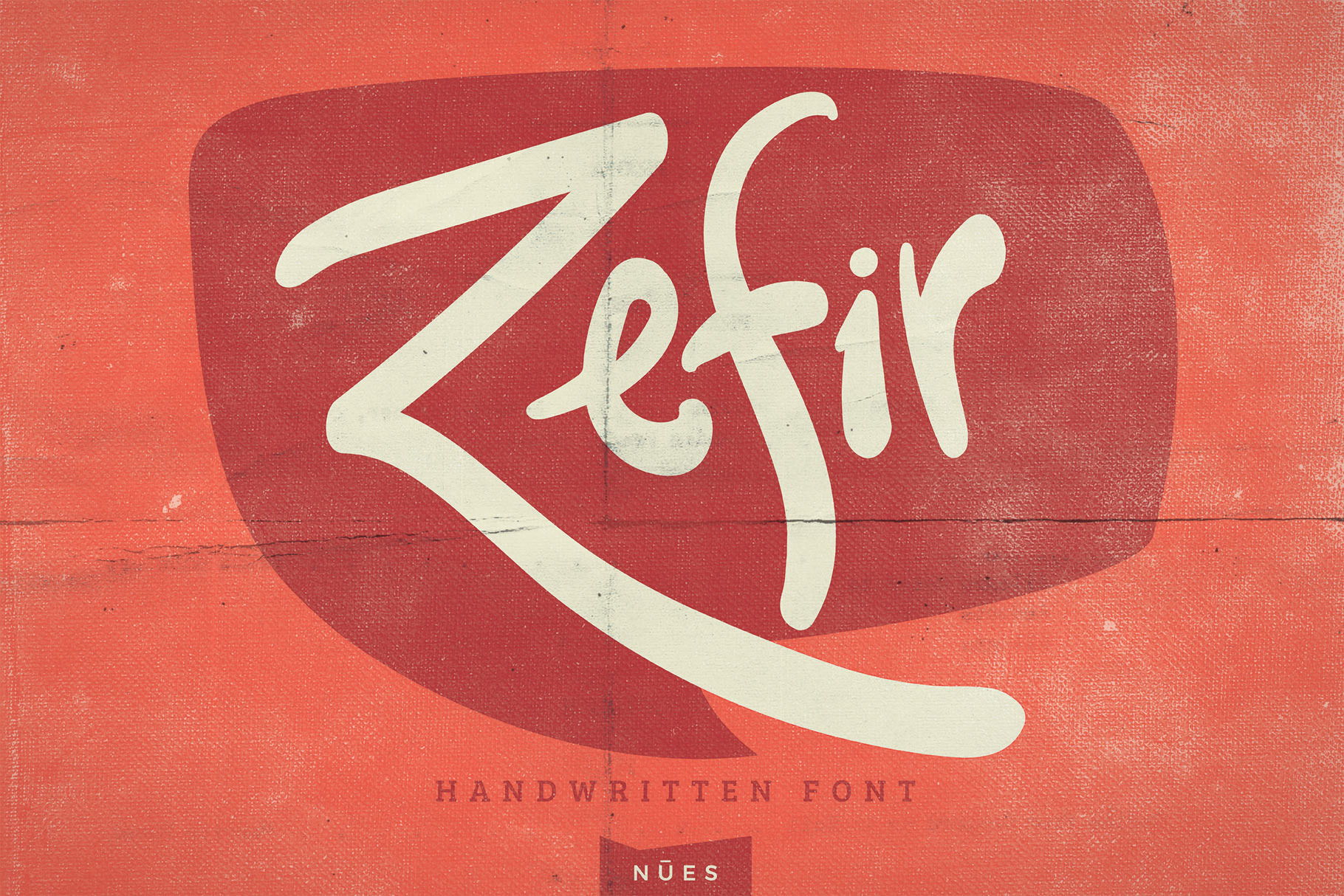
Zefir Script Font
Zefir a new font with a lot of character!
Zefir is a script typeface for every occasion. You can use it as a logo, badge, brochure, packaging, headline, poster, t-shirt/apparel, cards and wedding invitation.